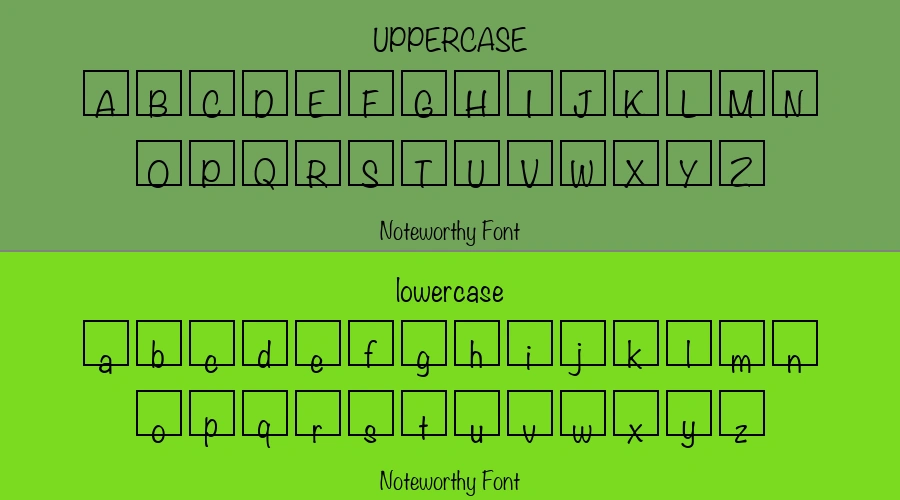
About Noteworthy Font
Noteworthy Font embodies typographic excellence through its masterful combination of alternates and visual comfort. Created for book design, this typeface delivers exceptional accuracy and design heritage across all applications. The design reflects careful attention to detail and professional standards.
Advanced capabilities include distinctive organic forms and versatile historical alternates, giving designers creative control. When used in sidebars, Noteworthy Font exhibits remarkable data presentation. The harmonious balance between bowl width and market position sets this typeface apart.